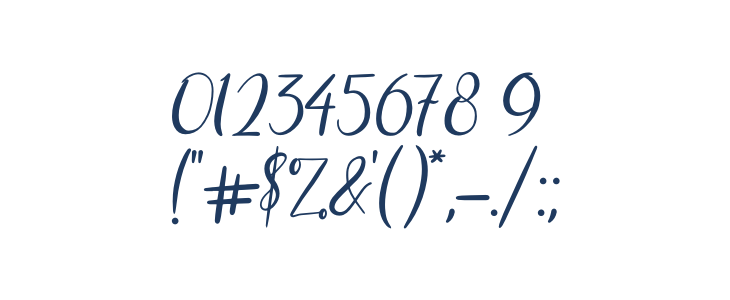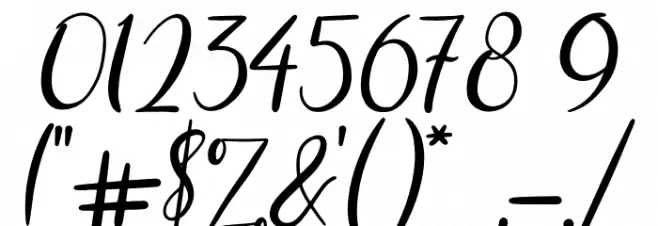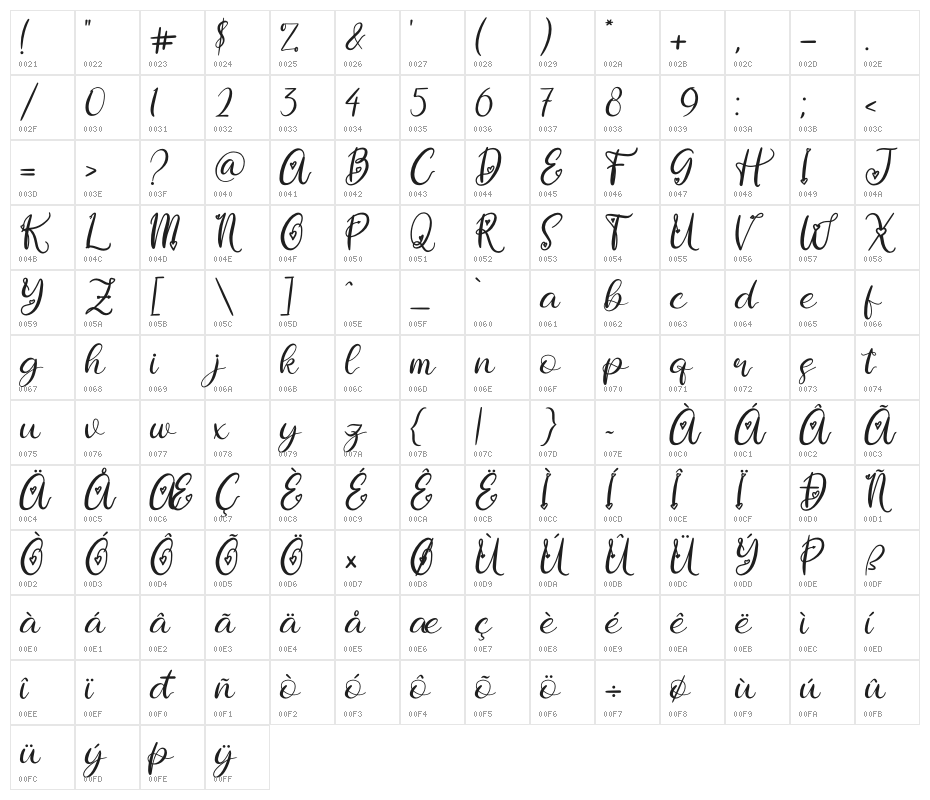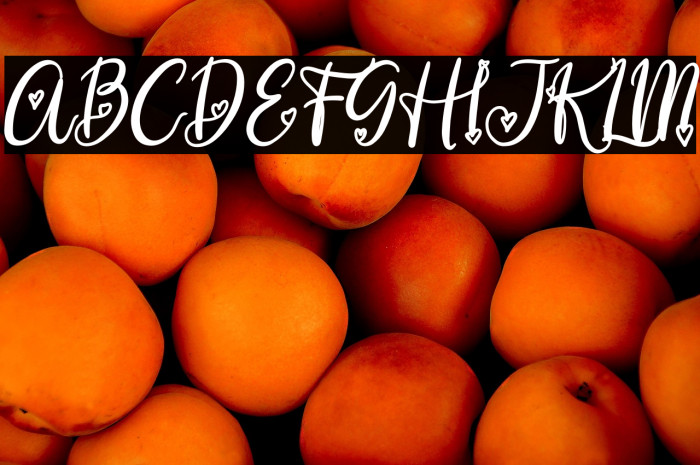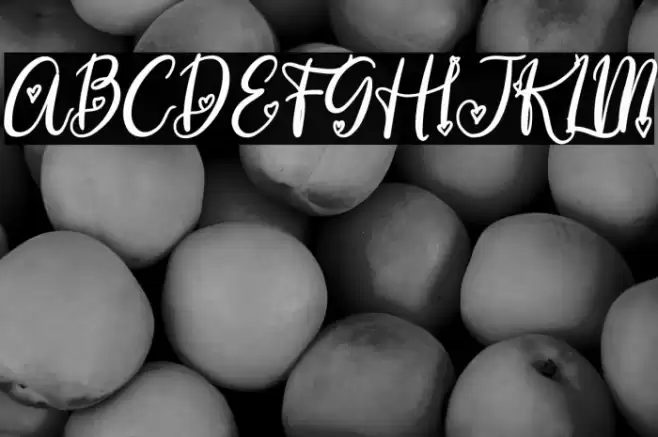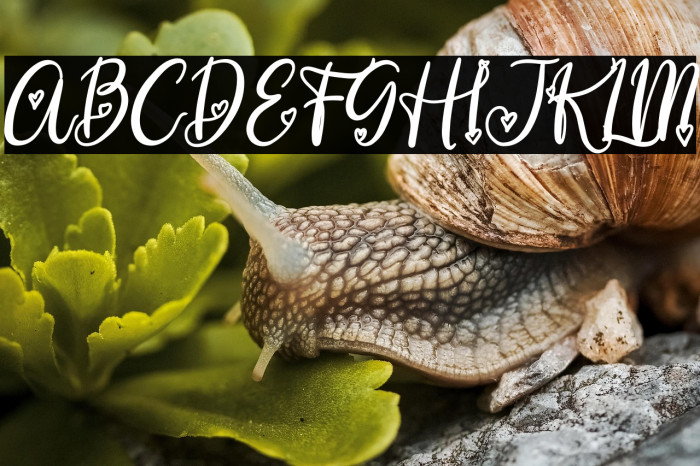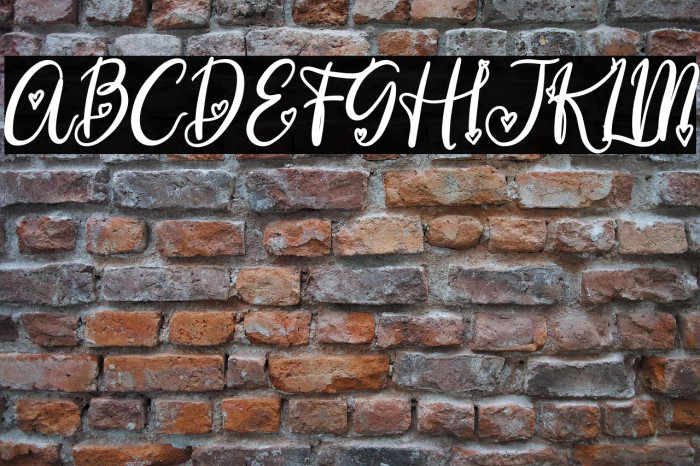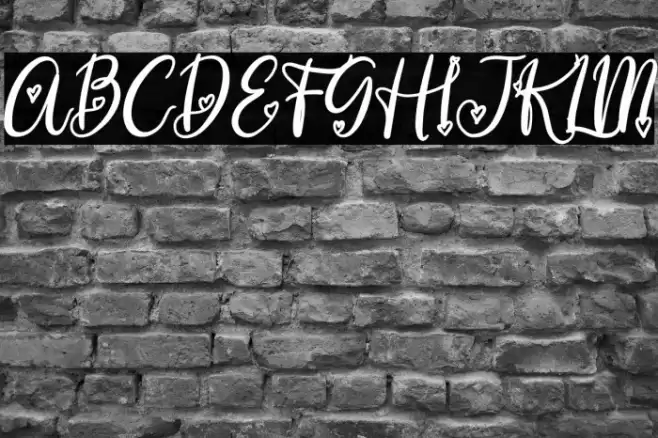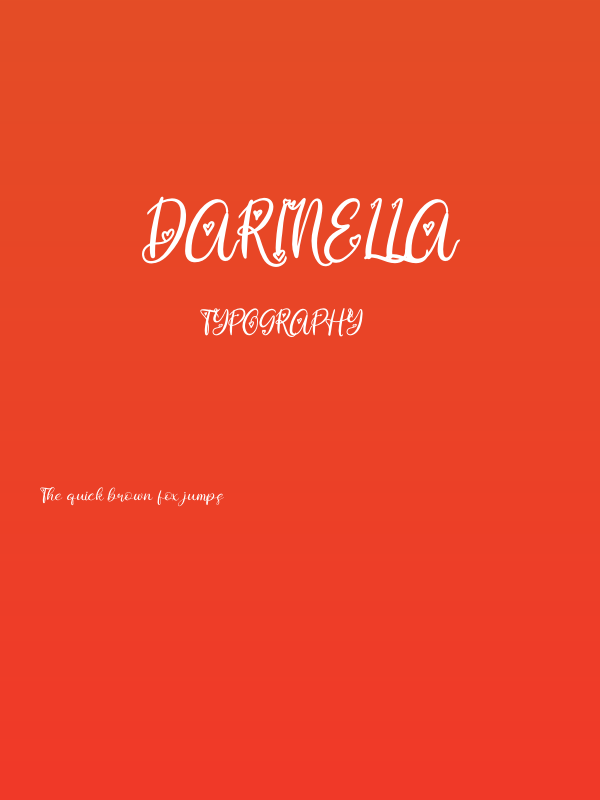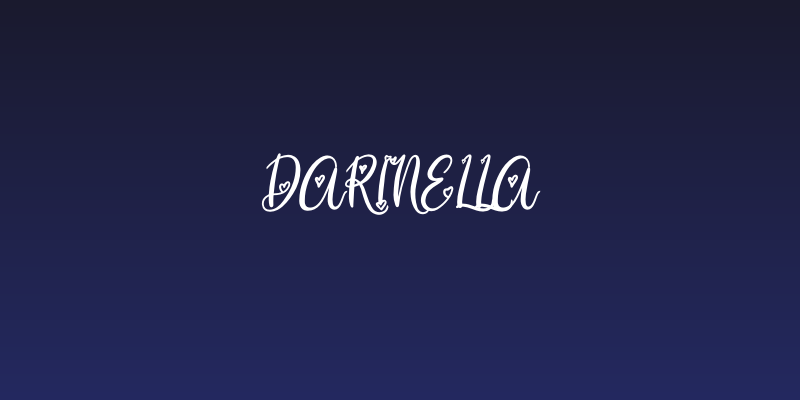
Darinella Font
Darinella Description
This font features a whimsical and playful script style, characterized by its flowing, cursive letters adorned with heart motifs. The uppercase letters are bold and decorative, with each character incorporating a heart shape either within or as part of the letterform. The lowercase letters maintain a consistent cursive style, offering a smooth and elegant appearance. Numbers and special characters are designed to match the overall playful aesthetic, making the font suitable for creative and romantic themes. The strokes are moderately thick, providing good readability while maintaining a decorative flair.
| Proposed Projects | Ideal for wedding invitations, greeting cards, romantic branding, and playful graphic designs. |